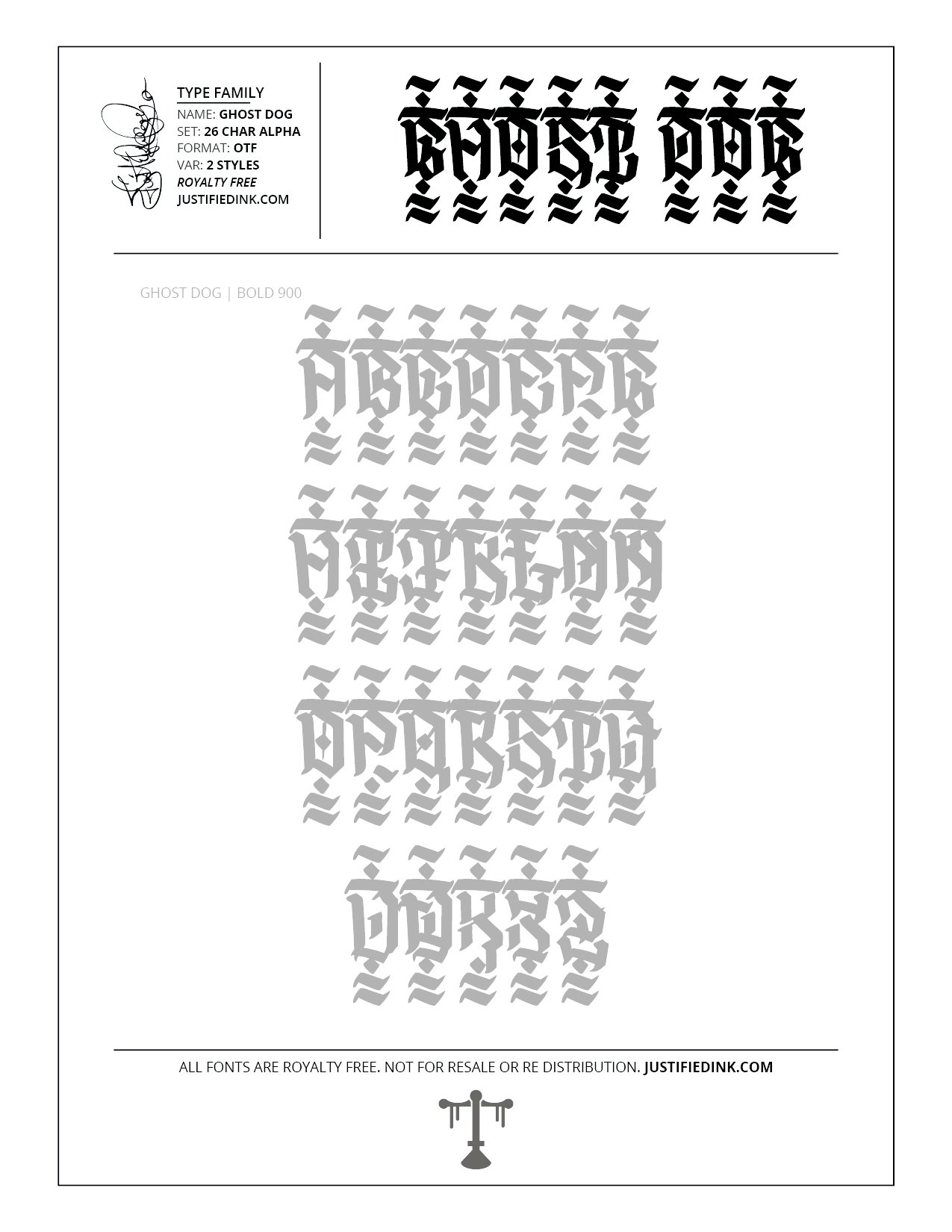
Ghost Dog (2 styles) - Custom Font by Justified Ink
NAME: Ghost Dog
Ghost dog hits without making a move. The silent swift and deadly approach to blackletter has left many in its wake. Few remain to tell the tale. Featuring 2 styles, one with letters only, and another with the full decorative style.
This font is part of the collection by Justified Ink, called Blackletter II. After 15+ years creating, I began to focus on building personal libraries of my work. The Blackletter II Collection was created through writing page after page, and countless hours over a 2 year span of daily practice. Each font from this collection has been hand drawn, manually vectored, and custom set as a type-able font. It comes in a full set of 26 char alpha. Each font family has variations in styles and/or non-alpha chars.